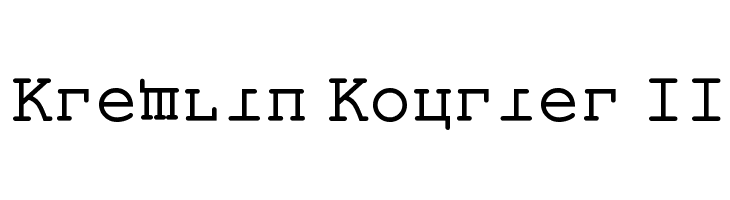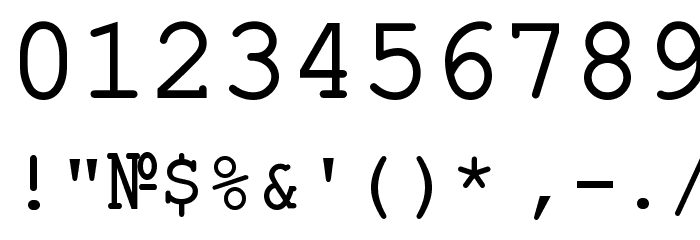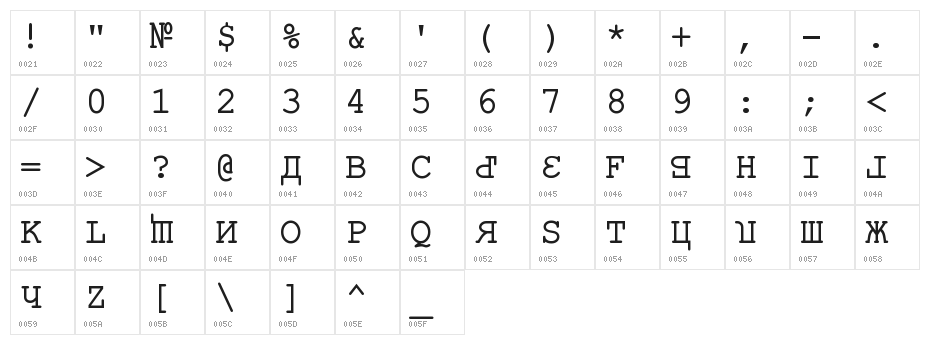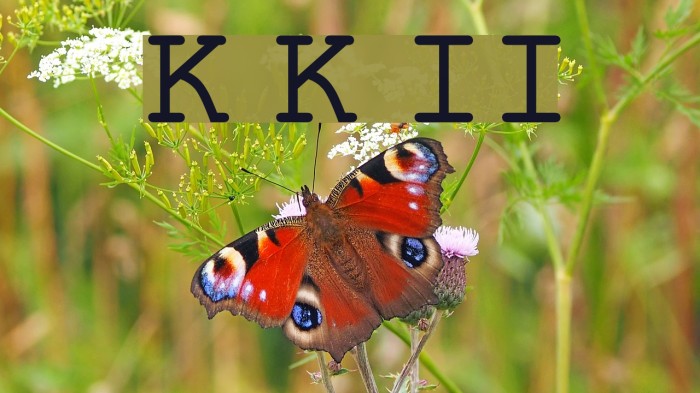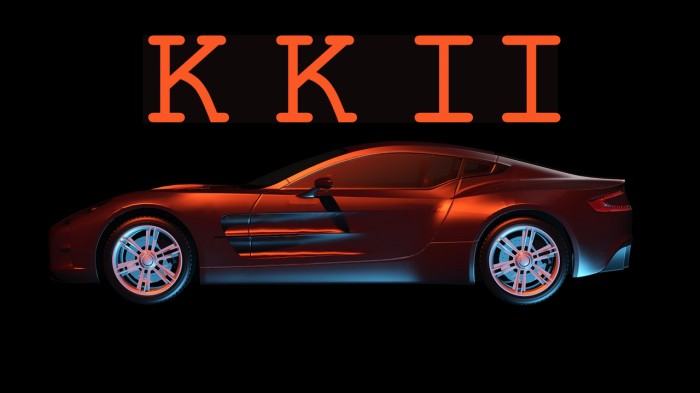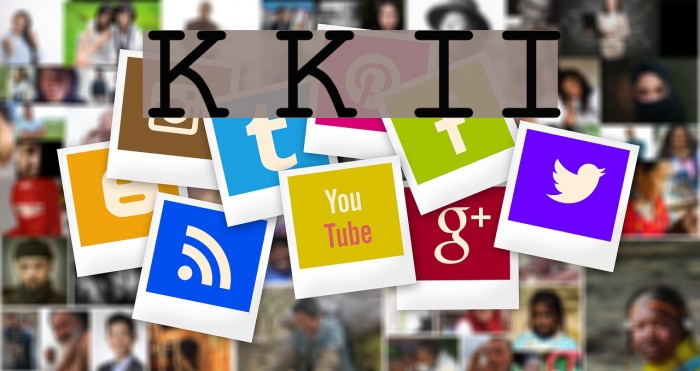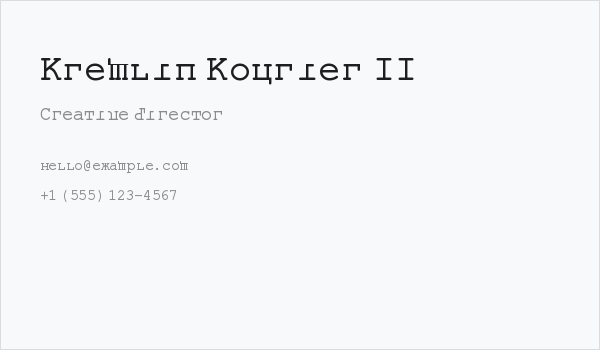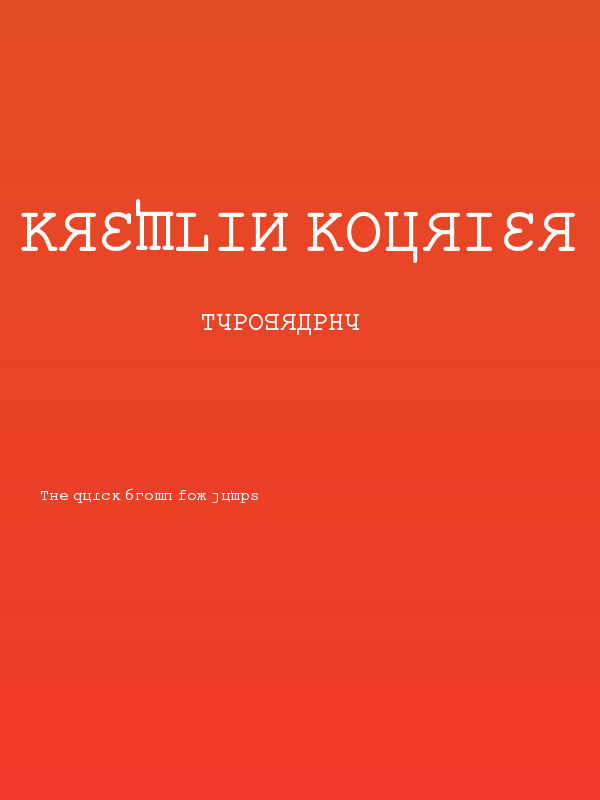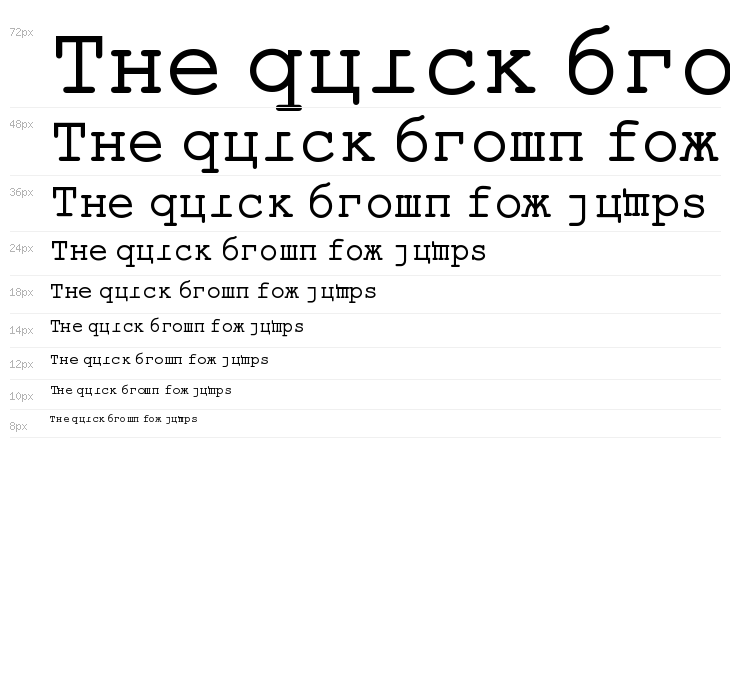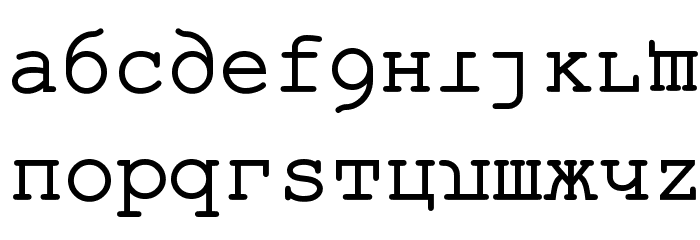
Kremlin Kourier II Font
Kremlin Kourier II Description
This font features a distinct and bold slab serif style, characterized by its strong, block-like serifs and uniform stroke width. The uppercase letters exhibit a geometric and structured form, while the lowercase letters maintain a consistent and balanced appearance. The numerals are clear and legible, matching the overall robust aesthetic. Special characters are well-integrated, maintaining the font's cohesive look. The design is reminiscent of typewriter fonts, offering a vintage yet timeless appeal. Its clarity and boldness make it suitable for various design applications.
Overall StyleVintage
Proposed ProjectsIdeal for retro-themed designs, posters, headlines, and branding projects that require a strong and classic look.